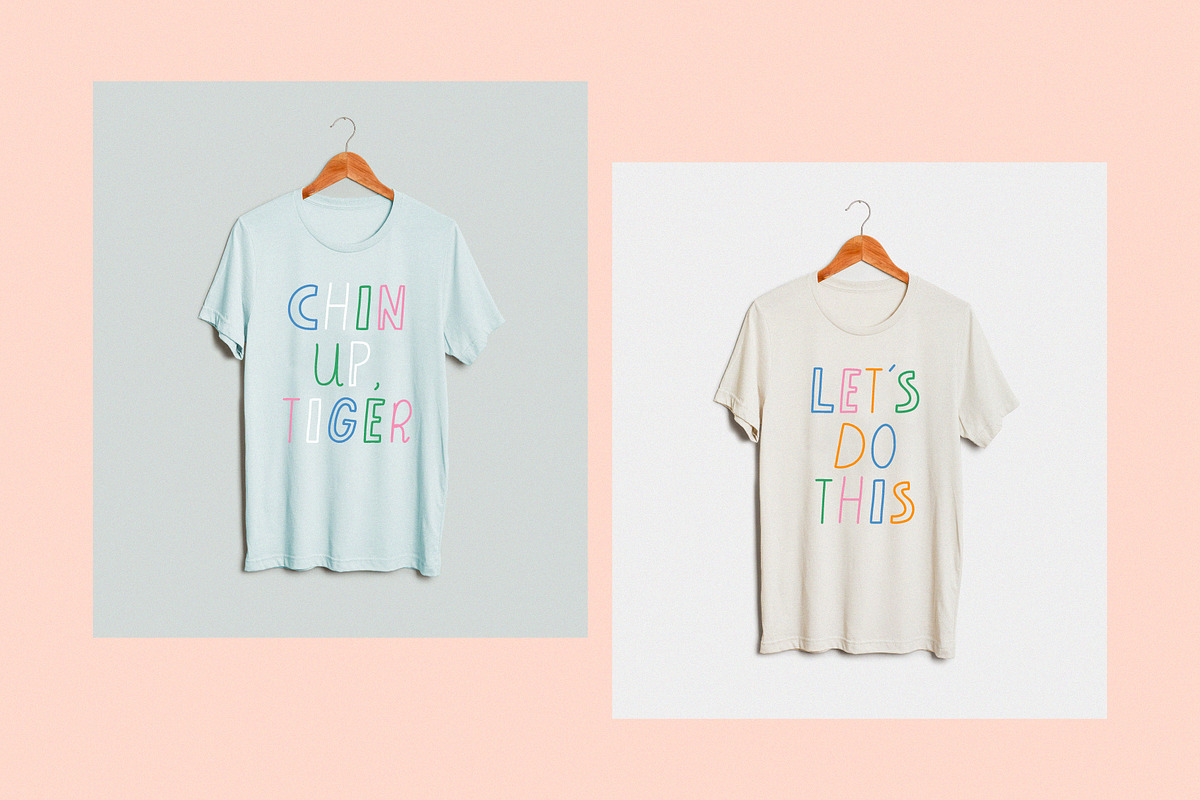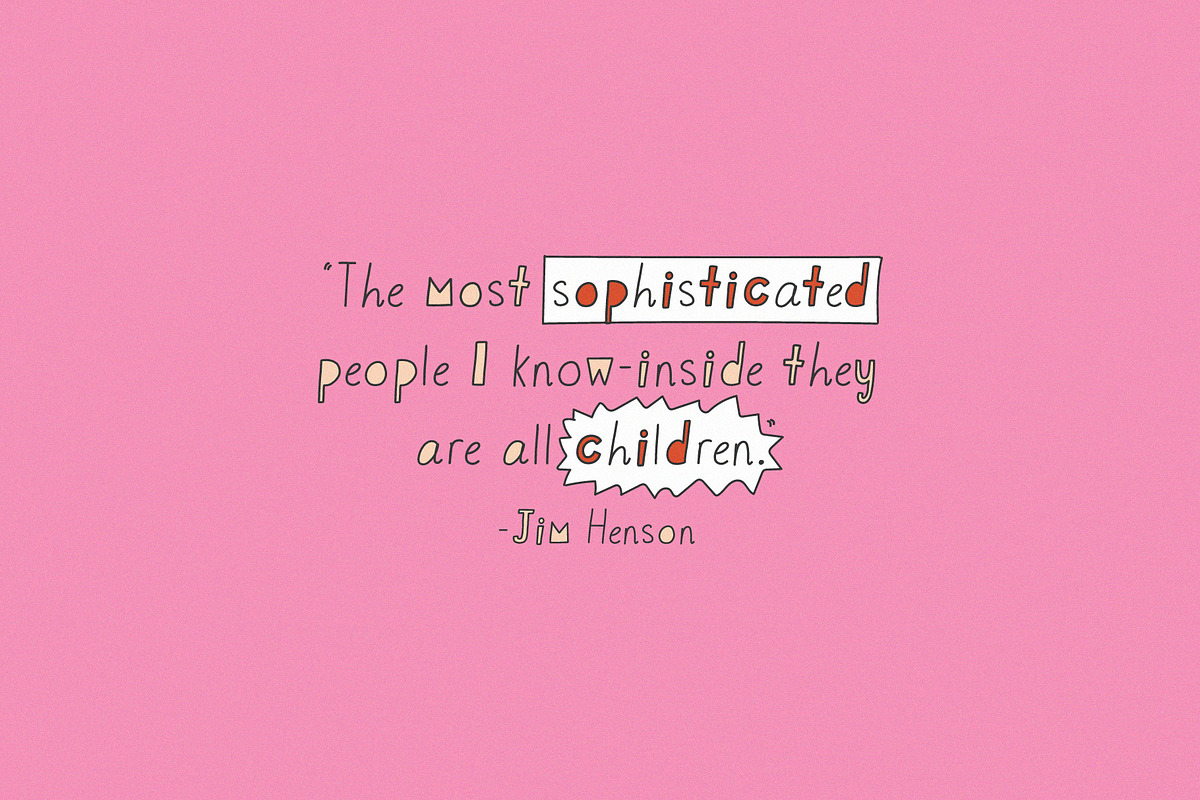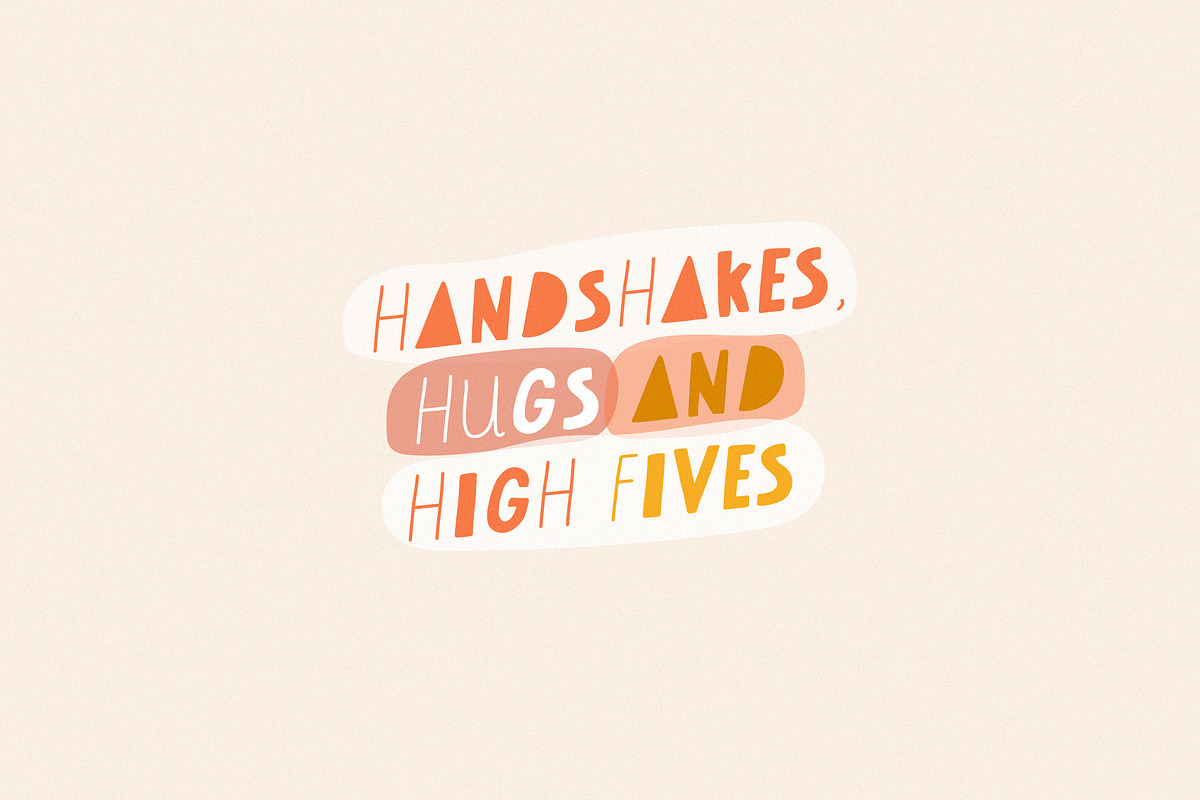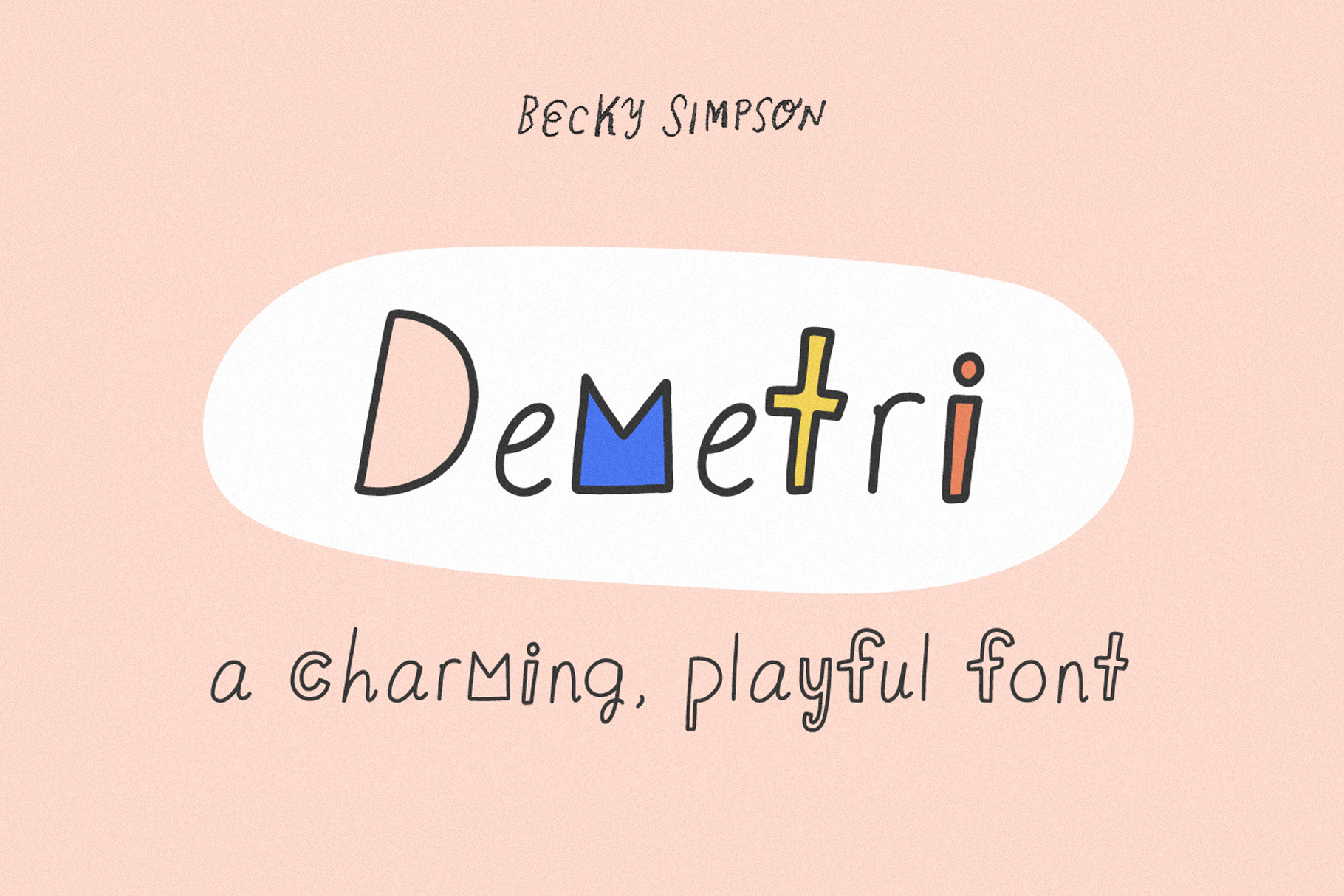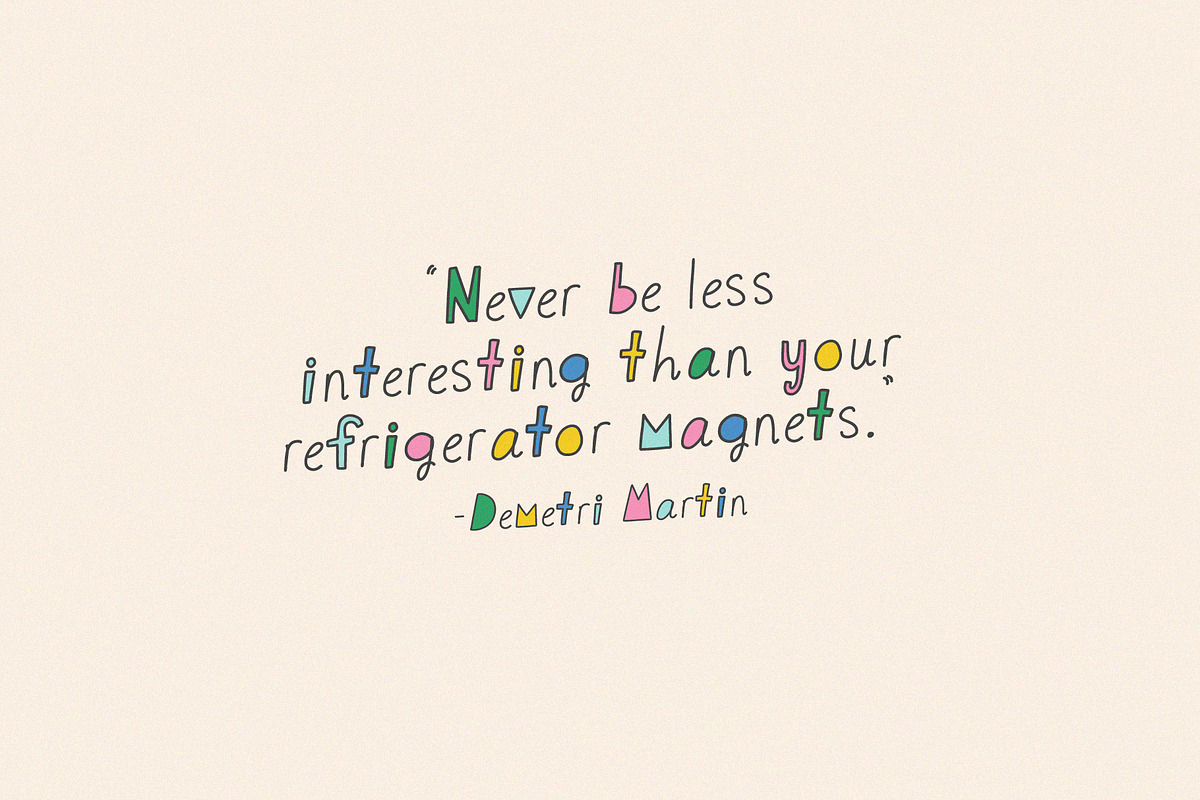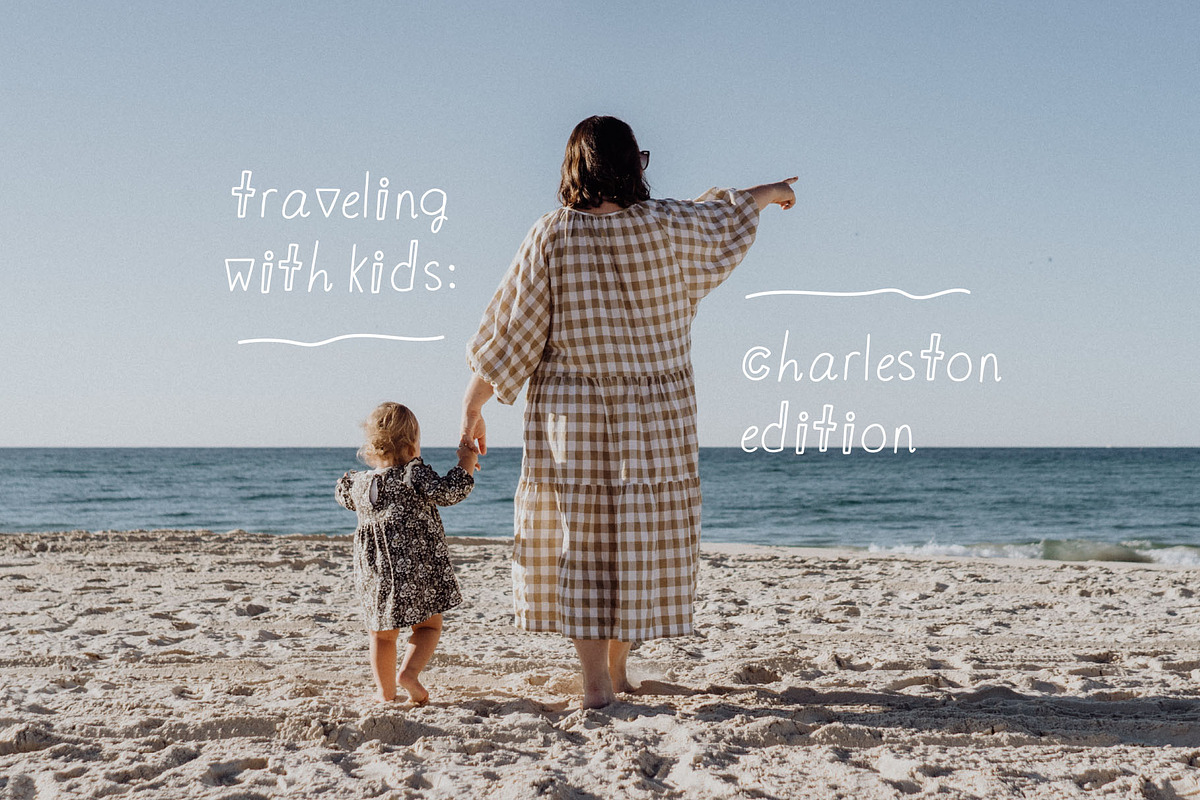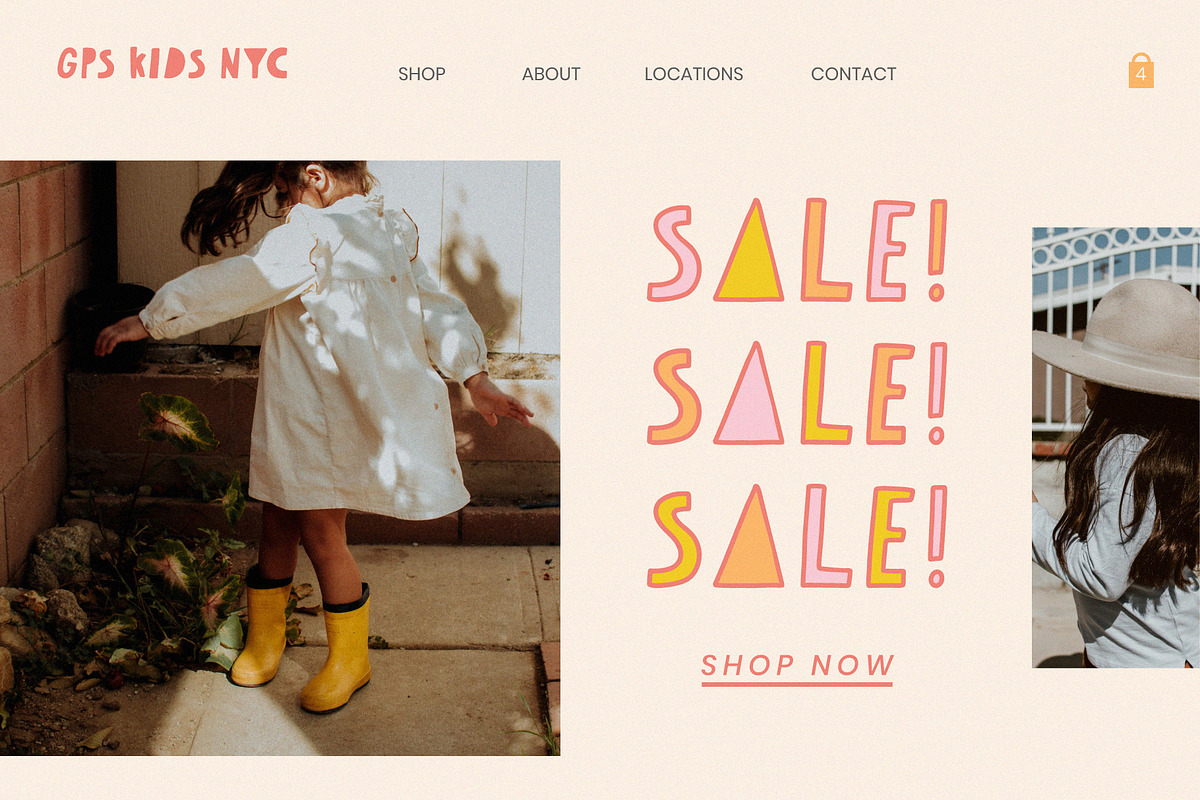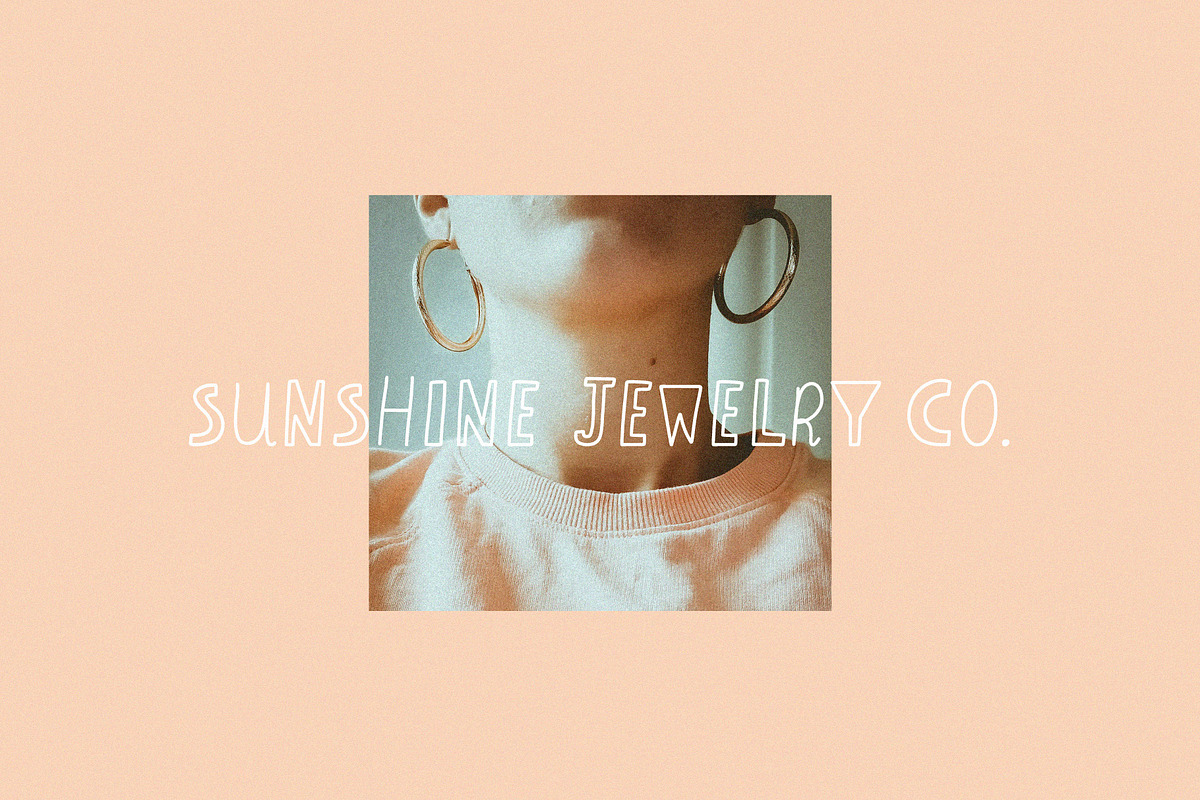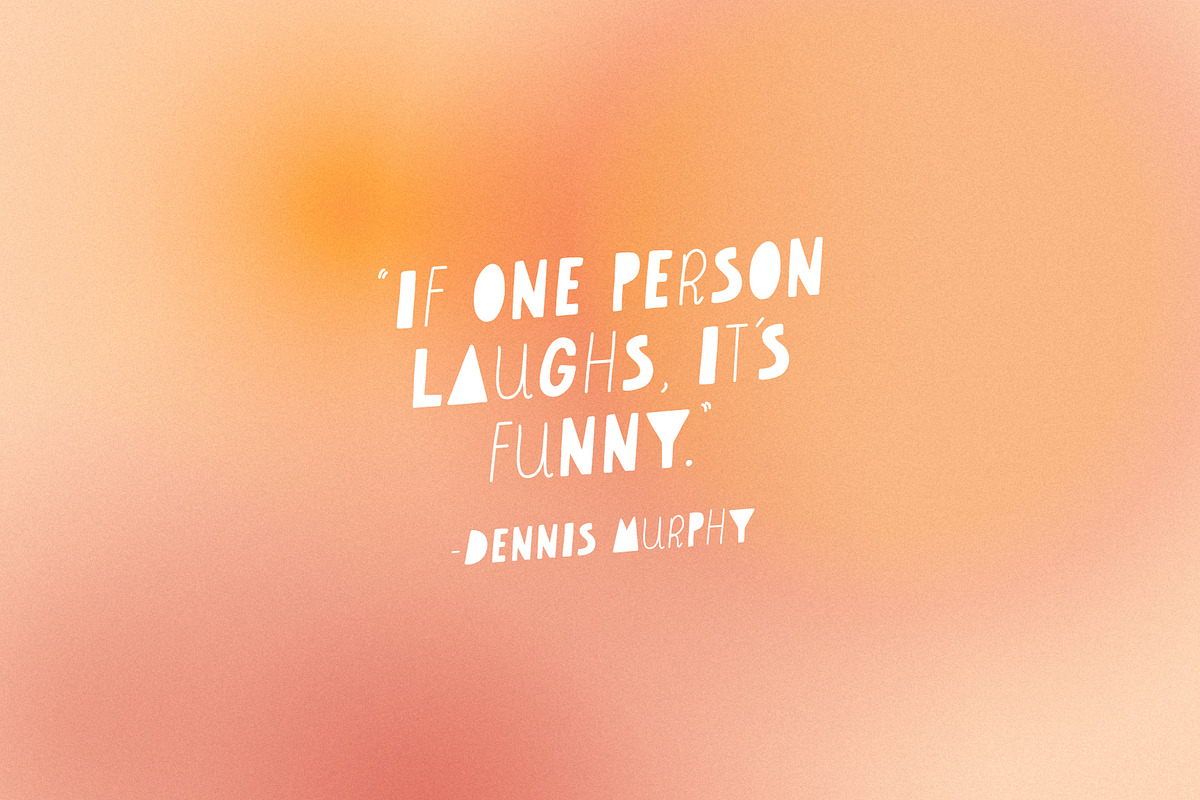
Demetri • Playful, Quirky Font
Demetri is a charming, playful, hand-lettered font. It's great for children's art, or any adult who likes to have fun. Perfect for display type and pull quotes. In fact, I first created it for a page quoting Demetri Martin in my book, THE ROOMMATE BOOK. This cute, quirky font is highly recommended for headers, blog posts, children's products, Instagram quotes, editorial work, book covers, baby shower invites, logos and so much more.
Styling tips:
- If you have software like Adobe Illustrator, play with coloring in the solid parts of the letters
- Tinker with all upper or all lowercase (or stick with title casing!
- Try drop shadows or making different letters different colors
- Play with scale and spacing